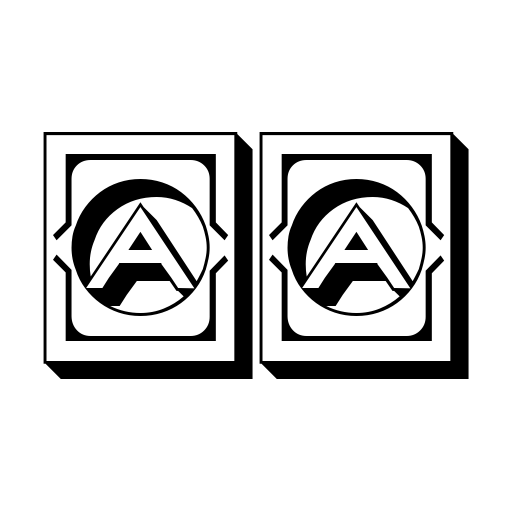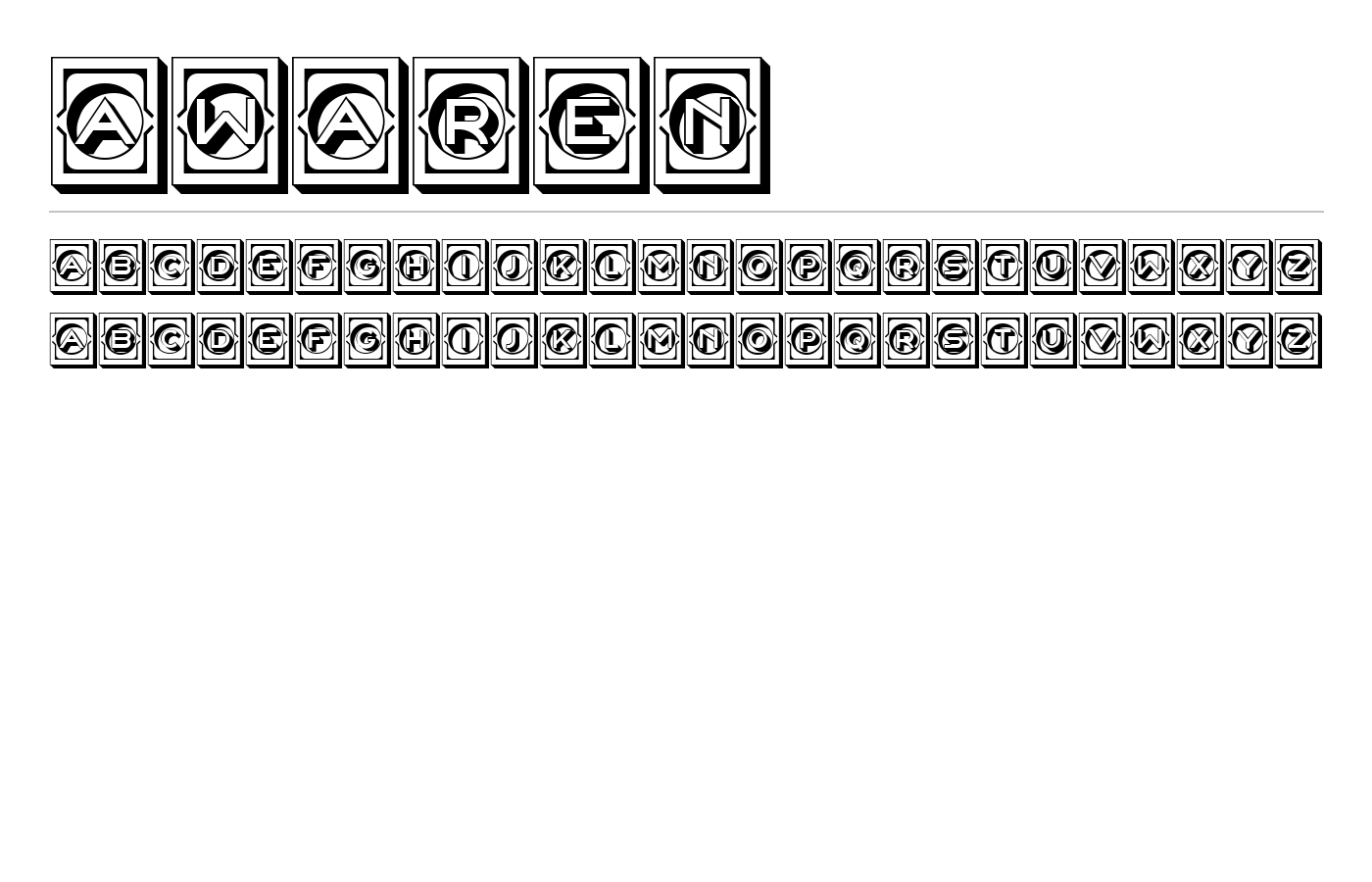
Awaren is a bold, decorative display font featuring uppercase letters framed within intricate geometric shapes, giving it a unique, artistic look. Its strong, structured lines and layered shadow effects create a vintage yet playful vibe, perfect for eye-catching logos, posters, and creative branding where a distinctive, retro-inspired style is desired. This font works best in large sizes where its detailed design can truly stand out and captivate attention.
Awaren Font
About Awaren Font
| Font family | Awaren Font |